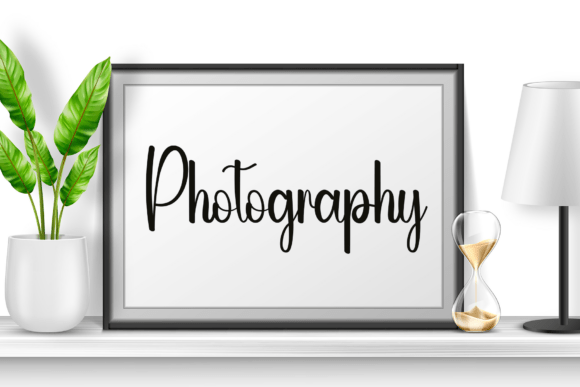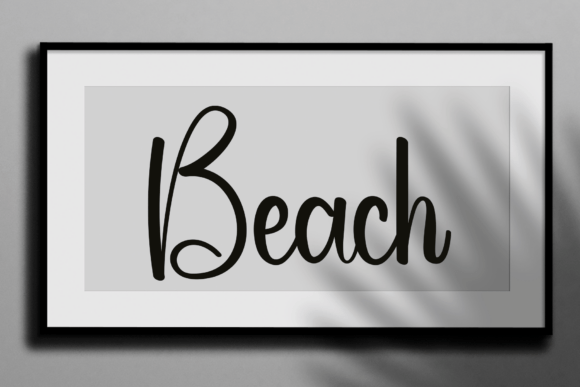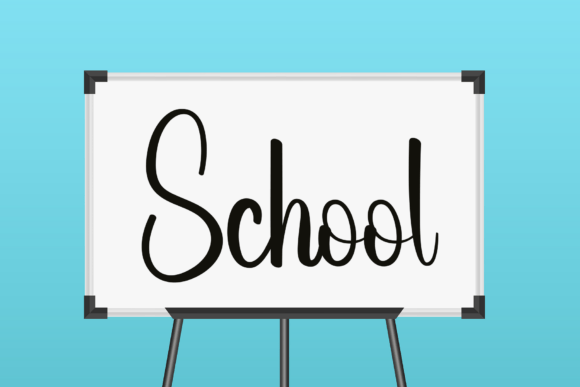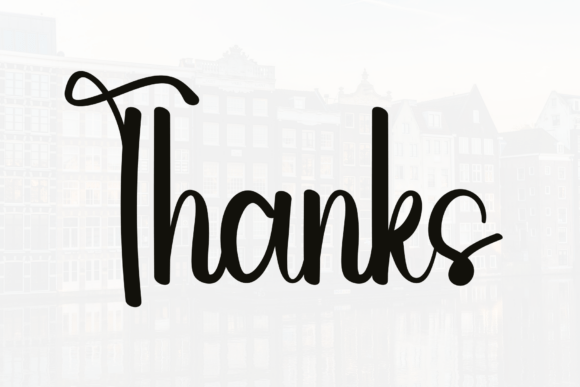
Introduction to Newyear Holiday Font
Do you remember that moment when you were brainstorming ideas for your latest design project and you stumbled upon the perfect font that gave your concept an instant boost of creativity? For designers, finding that one special font can be a game-changer. It’s the spark that sets off a chain reaction of inspiration, and suddenly, your design begins to take shape. This is exactly what happens when you discover the Newyear Holiday Font.
This charming handwritten font has a relaxed and sporty feel that’s perfect for branding, logos, wedding supplies, greeting cards, fashion, lookbooks, and marketing promotions. With its high-quality design, it’s no wonder that the Newyear Holiday Font has become a sought-after design resource for creatives. Whether you’re working on a free download project or a high-end commercial campaign, this font is sure to elevate your design to new heights.
Key Features of Newyear Holiday Font
- Transparent background option for easy layering in creative projects.
- High-quality design resource ideal for various creative projects.
- Unique, festive design perfect for New Year’s themed projects and holiday designs.
Honest Review: Newyear Holiday Font
I recently stumbled upon the Newyear Holiday Font, and I must say it’s a great addition to any designer’s toolkit. This font is perfect for creating festive and playful designs for your next creative project.
Here are some things that work well with the Newyear Holiday Font:
- High-quality design: The font is well-crafted and looks great on both light and dark backgrounds.
- Transparent background: This feature allows you to easily place the font over any image or background, giving you more creative freedom.
- Limited customization options: While the font looks great, it’s not as customizable as some other fonts on the market.
- Not ideal for professional branding: If you’re looking for a font to use for a corporate brand, this might not be the best choice.
Overall, I’d say the Newyear Holiday Font is a great addition to any design resource library. It’s perfect for personal projects or designs where you want to add a touch of whimsy and fun. Just be aware of its limitations and use it accordingly.
How to Use Newyear Holiday Font
To get the most out of the Newyear Holiday Font, experiment with different font sizes, colors, and combinations. You can also use it in conjunction with other design resources, such as images or graphics, to create a unique and eye-catching design.
The Newyear Holiday Font is perfect for a variety of projects, including holiday invitations, party decorations, social media graphics, and business reports. Its transparent background feature makes it easy to use in creative projects, and its high-quality design makes it perfect for commercial use.